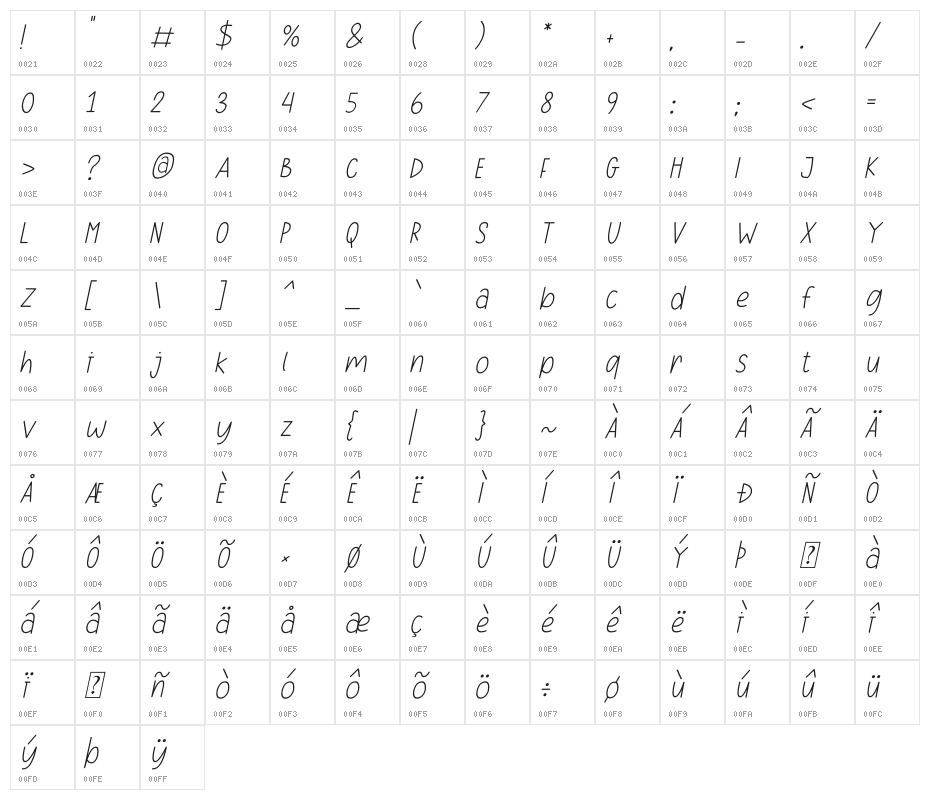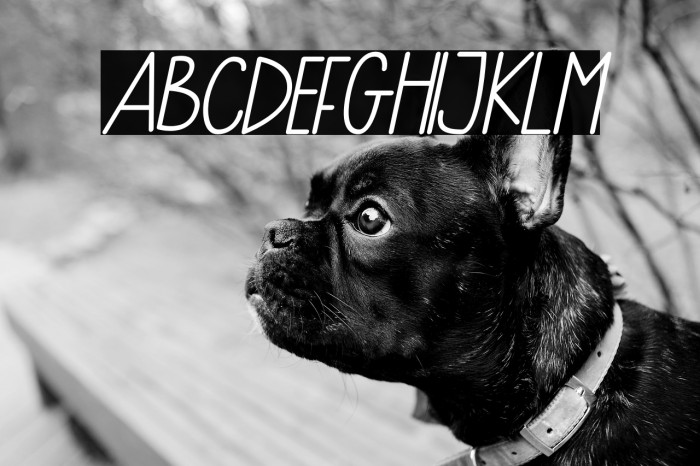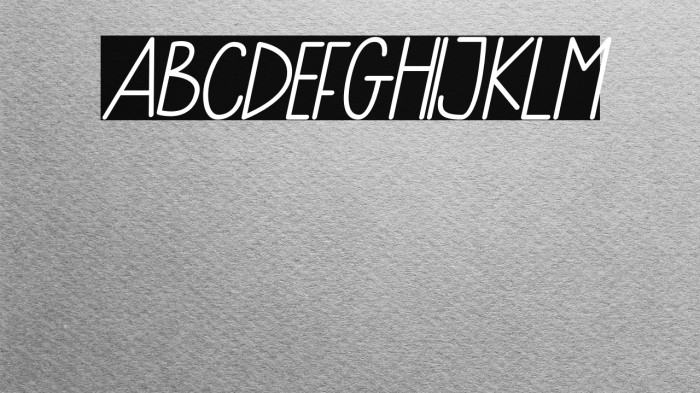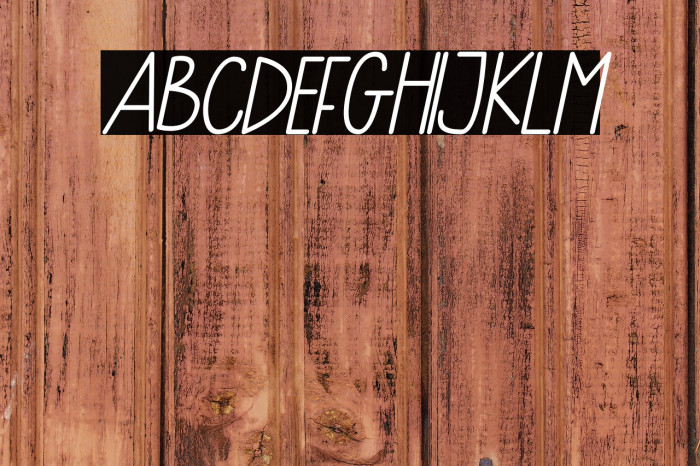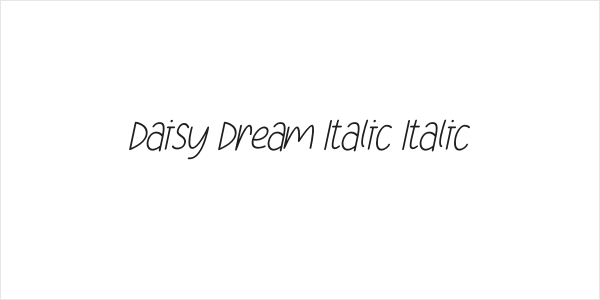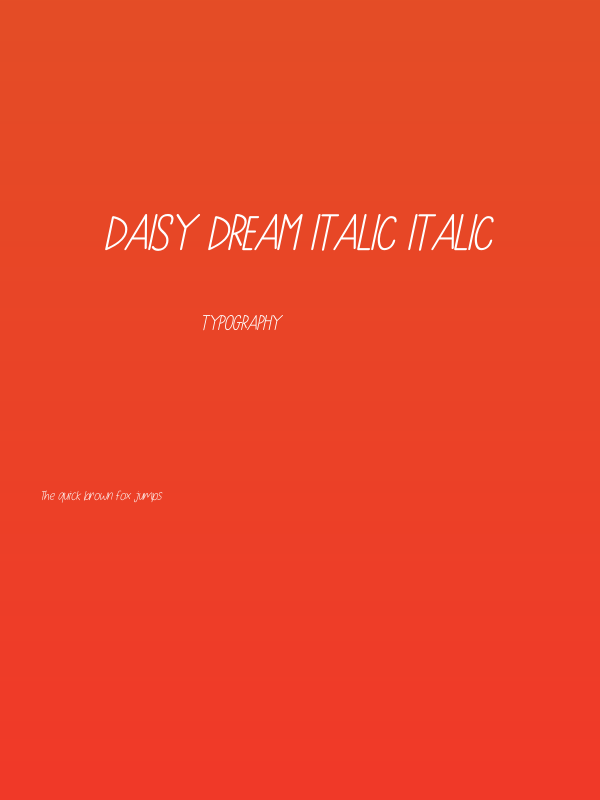
Daisy Dream Italic Italic Font
Daisy Dream Italic Italic Description
This font features a playful and flowing handwritten style, characterized by its smooth curves and slightly slanted letters. The uppercase and lowercase letters maintain a consistent rhythm, creating a harmonious and casual appearance. The numerals and special characters are designed to complement the alphabet, with a similar fluidity and elegance. The overall design is light and airy, making it suitable for projects that require a touch of whimsy and informality.
| Overall Style | Casual, Whimsical |
| Use Case | Headlines, Invitations, Personal Branding |
| Proposed Projects | Ideal for greeting cards, invitations, personal branding, and creative projects that require a whimsical touch. |